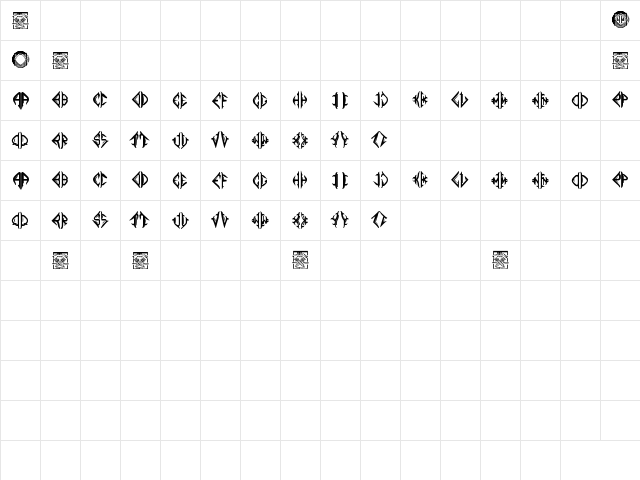
Mediogramo Regular
| Designer | Woodcutter Manero |
Design Context for Mediogramo Typeface
Mediogramo is a composed and adaptable typeface that performs quietly and consistently across a wide range of design contexts.